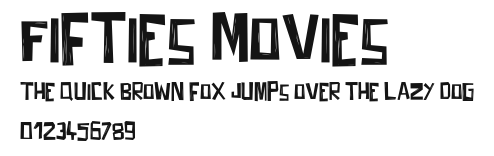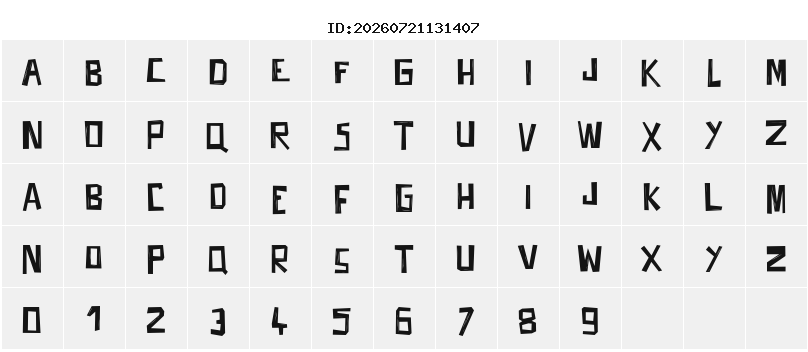
Fifties Movies.ttf
• Font Name: Fifties Movies
• Designer: IMAGEX
About Fifties Movies.ttf
Fifties Movies.ttf is a modern, elegant sans-serif font designed for ultimate readability and visual harmony. Perfect for branding, headlines, web design, and print materials.